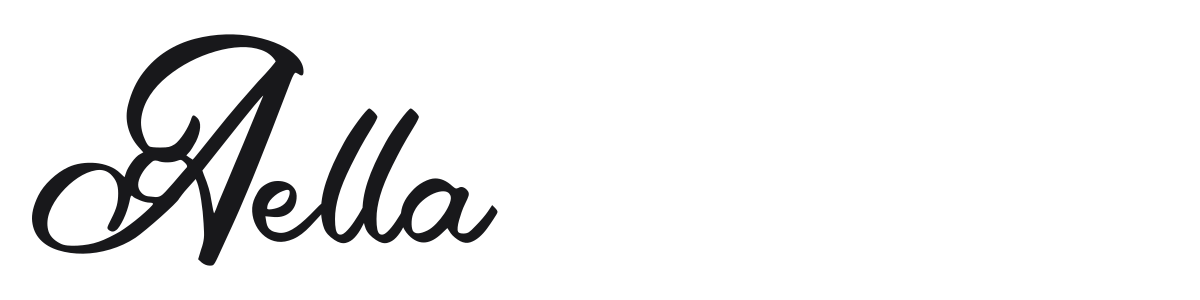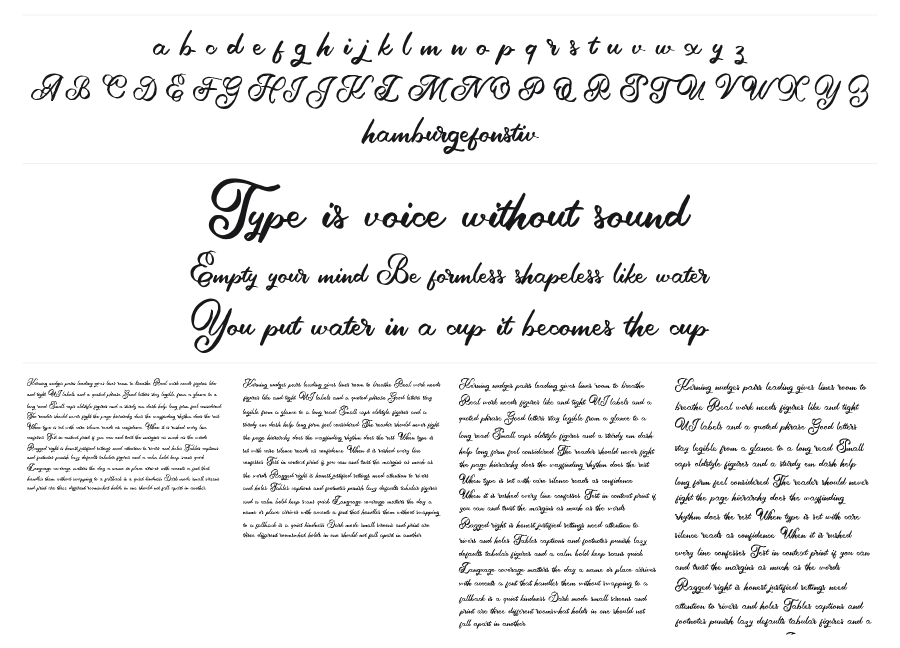
Aella
Aella is a casual brush script with loose, flowing strokes and the kind of natural energy that comes from actual hand-lettering. The thick-to-thin contrast is expressive without being extreme, keeping it readable at display sizes. It has wide, open proportions and looping connections that give it a warm, spontaneous feel.